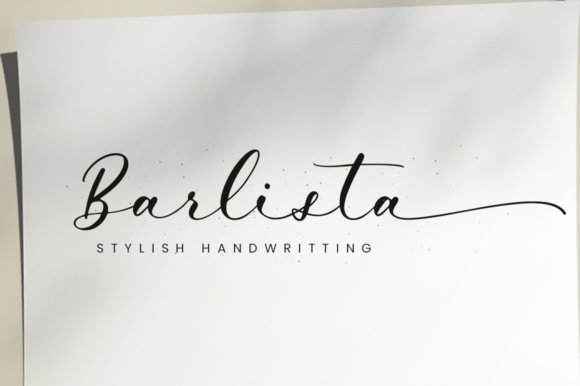
Introducing Barlista Font: The Perfect Calligraphy Font for Your Creative Projects
Are you looking for a beautiful and delicate calligraphy font to elevate your creative projects? Look no further than Barlista Font. This stunning font is perfect for a wide range of applications, from crafting and branding to invitations, stationery, and wedding designs. In this article, we’ll explore the features and benefits of Barlista Font, and show you how to use it to take your designs to the next level.
What is Barlista Font?
Barlista Font is a beautiful and delicate calligraphy font that is perfect for anyone looking to add a touch of elegance and sophistication to their designs. With its intricate and flowing lines, this font is sure to impress. Whether you’re a designer, artist, or simply a DIY enthusiast, Barlista Font is a versatile and easy-to-use font that can help you create stunning designs in no time.
Key Features of Barlista Font
- Beautiful and delicate calligraphy: Barlista Font features intricate and flowing lines that give it a unique and elegant look.
- Perfect for creative projects: Whether you’re working on a crafting, branding, or wedding design project, Barlista Font is the perfect choice.
- High-quality design: Barlista Font is designed with high-quality and precision, ensuring that it looks great in any size or format.
Uses for Barlista Font
Barlista Font is a versatile font that can be used for a wide range of creative projects, including:
- Crafting: Add a touch of elegance to your crafting projects, such as scrapbooking, card making, and DIY home decor.
- Branding: Use Barlista Font to create a unique and memorable brand identity for your business.
- Invitations and stationery: Create beautiful and elegant invitations, stationery, and greeting cards with Barlista Font.
- Wedding designs: Make your wedding designs truly special with Barlista Font, perfect for wedding invitations, programs, and decorations.
- Social media posts: Add a touch of elegance to your social media posts and make them stand out from the crowd.
- Advertisements: Use Barlista Font to create eye-catching and effective advertisements for your business or product.
- Product packaging: Add a touch of elegance to your product packaging and make it stand out on store shelves.
- Product designs: Use Barlista Font to create beautiful and unique product designs, such as labels, tags, and more.
- Photography: Add a touch of elegance to your photography with Barlista Font, perfect for watermarks, captions, and more.
- Special events: Use Barlista Font to create unique and memorable designs for special events, such as birthdays, anniversaries, and more.
Benefits of Using Barlista Font
There are many benefits to using Barlista Font for your creative projects. Here are just a few:
- Elegant and sophisticated look: Barlista Font adds a touch of elegance and sophistication to any design.
- Versatility: This font can be used for a wide range of creative projects, from crafting and branding to wedding designs and social media posts.
- High-quality design: Barlista Font is designed with high-quality and precision, ensuring that it looks great in any size or format.
- Unique and memorable: With Barlista Font, you can create unique and memorable designs that will stand out from the crowd.
Tips for Using Barlista Font
Here are a few tips for using Barlista Font to get the most out of this beautiful font:
- Use it sparingly: Barlista Font is a elegant and sophisticated font, so use it sparingly to add a touch of elegance to your designs.
- Experiment with different sizes and formats: Try out different sizes and formats to see how Barlista Font looks in different contexts.
- Pair it with other fonts: Barlista Font pairs well with other fonts, so try pairing it with a bold font for a striking contrast.
- Use it consistently: Use Barlista Font consistently throughout your design to create a cohesive and professional look.
Barlista Font is a beautiful and delicate calligraphy font that is perfect for a wide range of creative projects. With its elegant and sophisticated look, versatility, and ease of use, Barlista Font is a great choice for designers, artists, and DIY enthusiasts alike. Whether you’re working on a crafting, branding, or wedding design project, Barlista Font is sure to impress. So why wait? Download Barlista Font today and start creating stunning designs that will stand out from the crowd.
- What is Barlista Font?: Barlista Font is a beautiful and delicate calligraphy font.
- What can I use Barlista Font for?: Barlista Font can be used for a wide range of creative projects, including crafting, branding, invitations, stationery, wedding designs, social media posts, advertisements, product packaging, product designs, label, photography, watermark, special events or anything else you can think of.